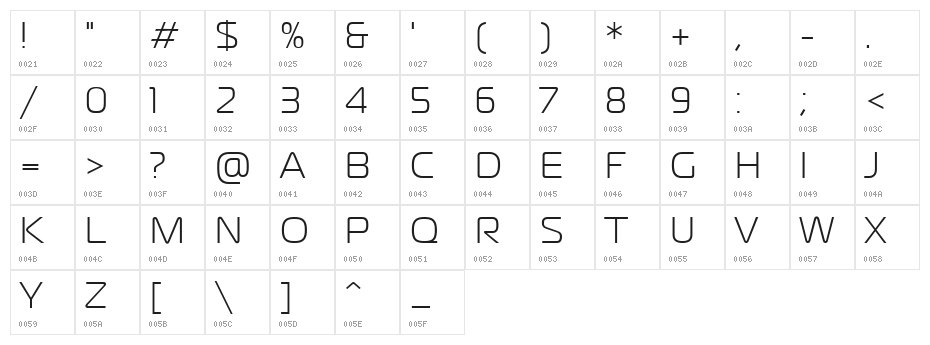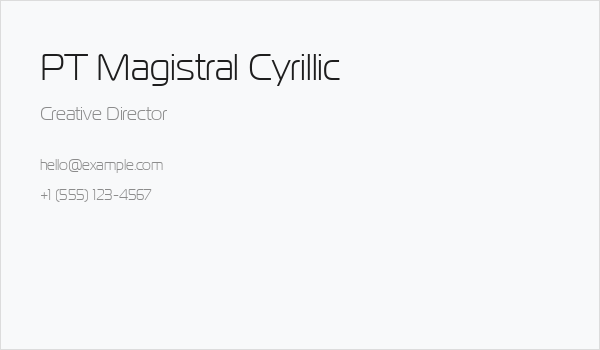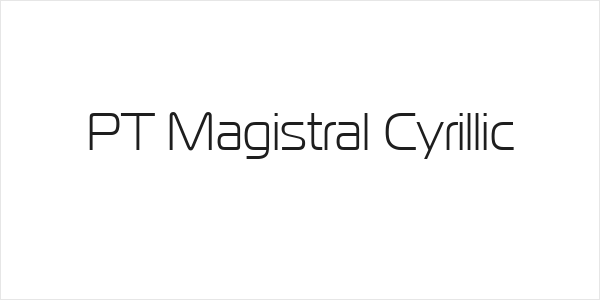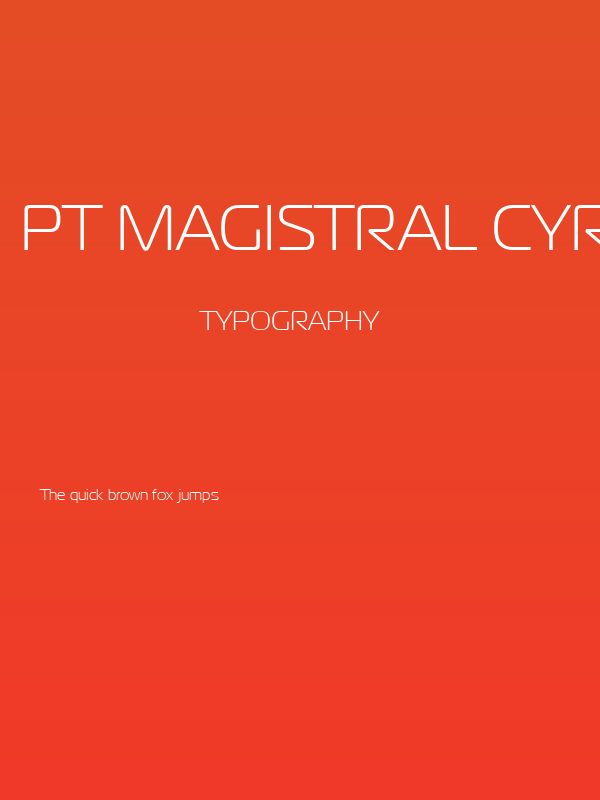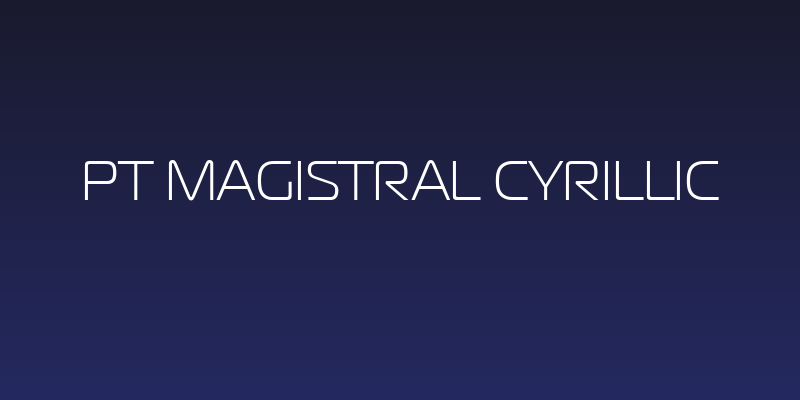
PT Magistral Cyrillic Font
PT Magistral Cyrillic Description
This font features a clean, geometric sans-serif style with a modern aesthetic. The characters are uniform in width, providing a balanced and harmonious appearance. The uppercase letters are slightly taller than the lowercase, maintaining a consistent line weight throughout. The numerals are clear and distinct, matching the overall style of the alphabet. Special characters are well-integrated, ensuring versatility in various applications. The design is minimalistic, making it suitable for contemporary projects that require a sleek and professional look.
Proposed ProjectsIdeal for branding, digital interfaces, and editorial design where a modern and clean look is desired.